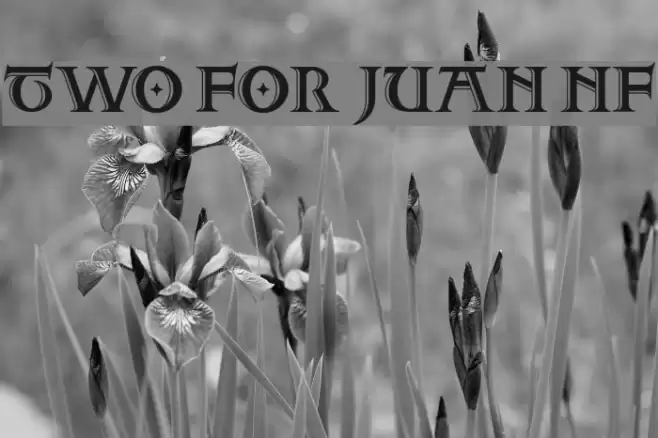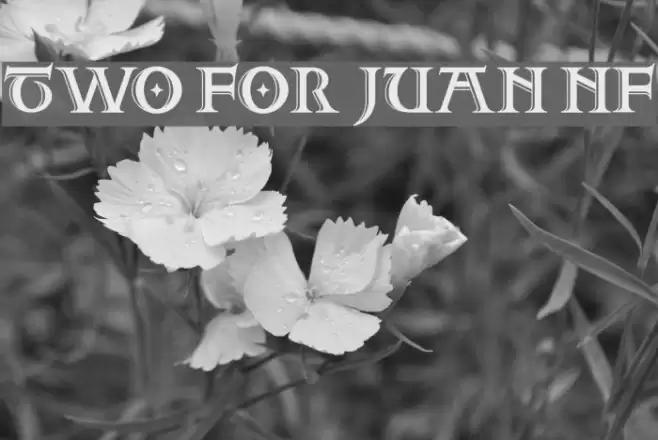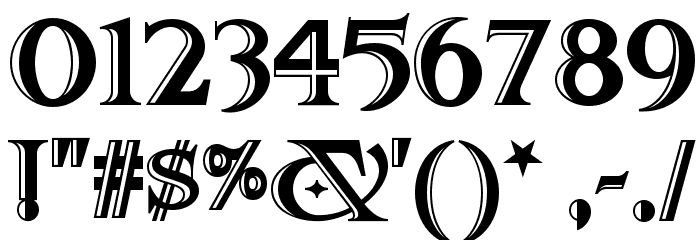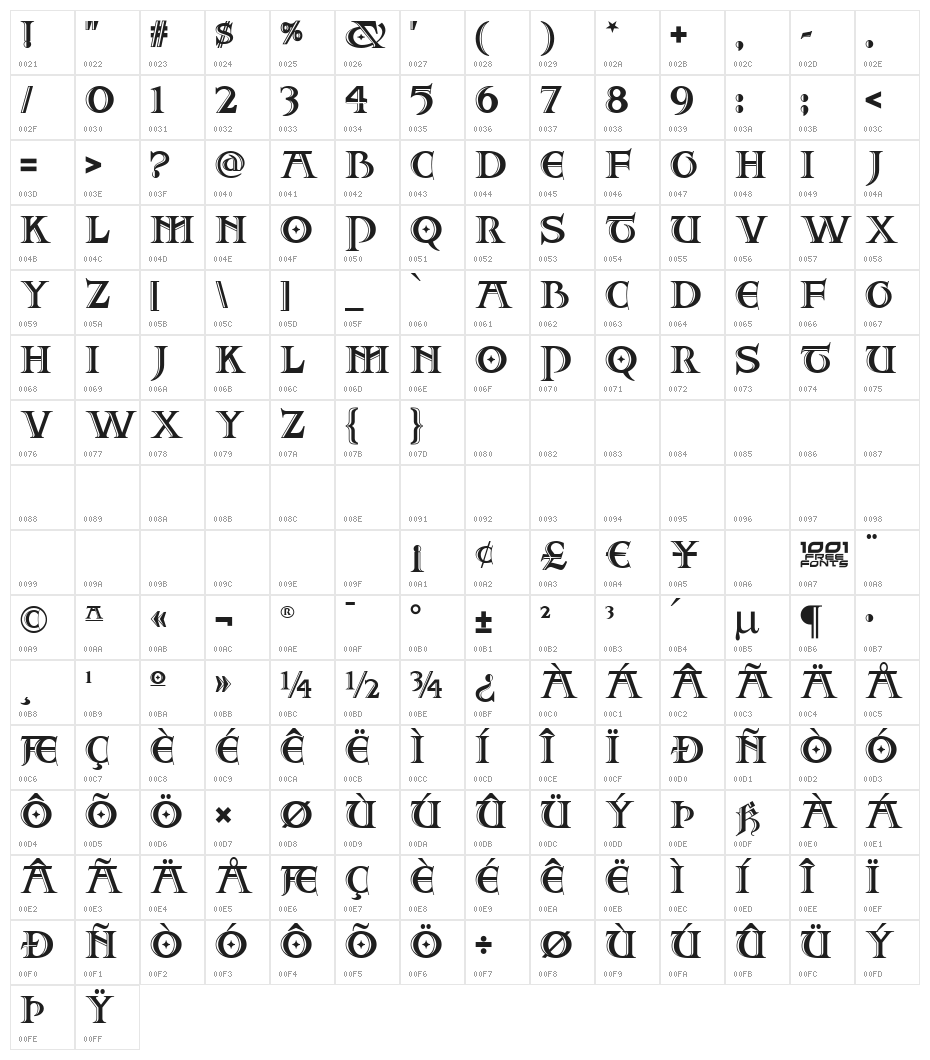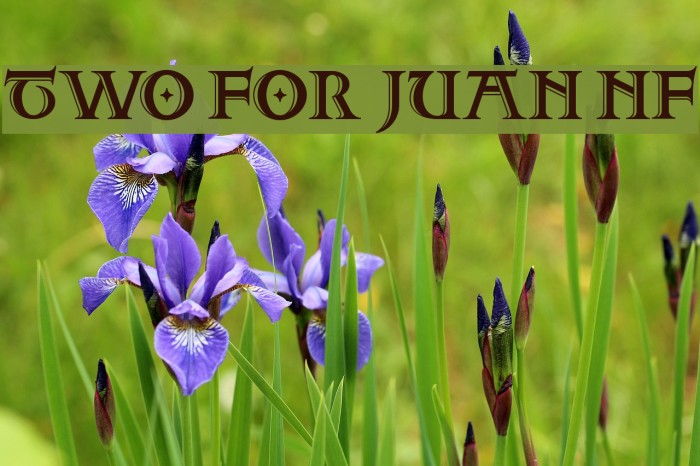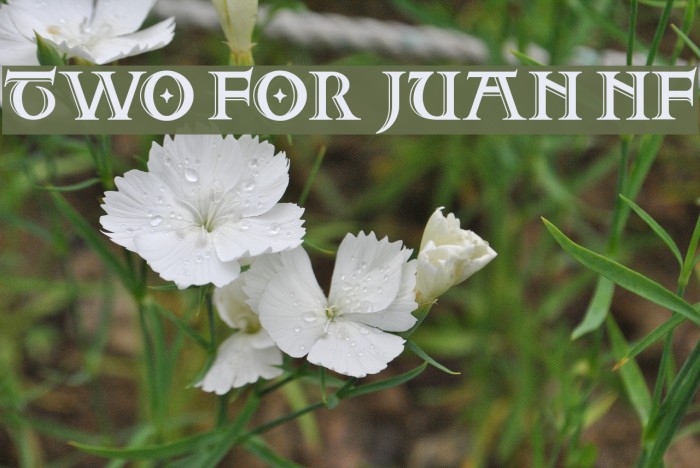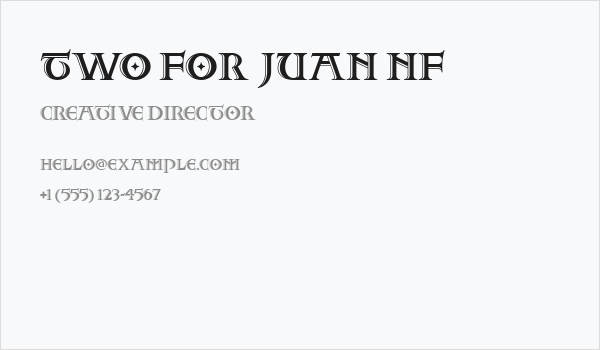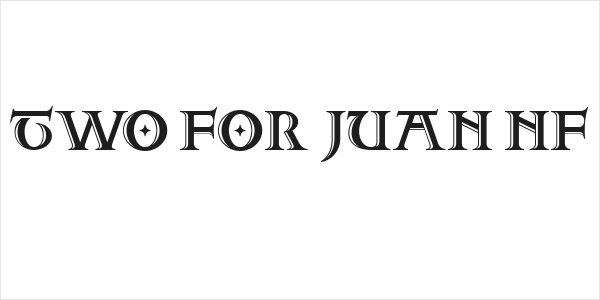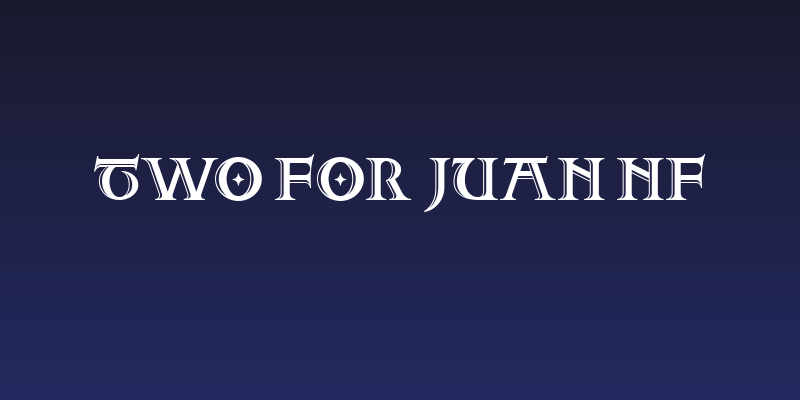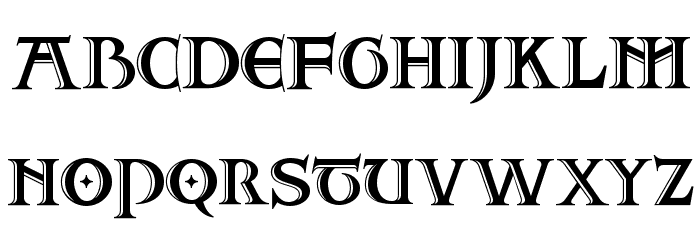
Two For Juan NF Font
Two For Juan NF Description
This font features a bold and dramatic style with a distinct flair. The characters are characterized by sharp, angular serifs and a unique blend of thick and thin strokes, giving it a high contrast appearance. The uppercase letters are particularly striking, with a gothic influence that adds a sense of mystery and elegance. The numbers and special characters maintain this bold aesthetic, ensuring consistency across all glyphs. This font is ideal for making a strong visual impact, with its decorative elements and intricate design details.
A bold, high-contrast font with gothic influences and decorative serifs from Script fonts.
- Proposed Projects: Ideal for branding, poster design, album covers, and any project requiring a dramatic and eye-catching typeface.